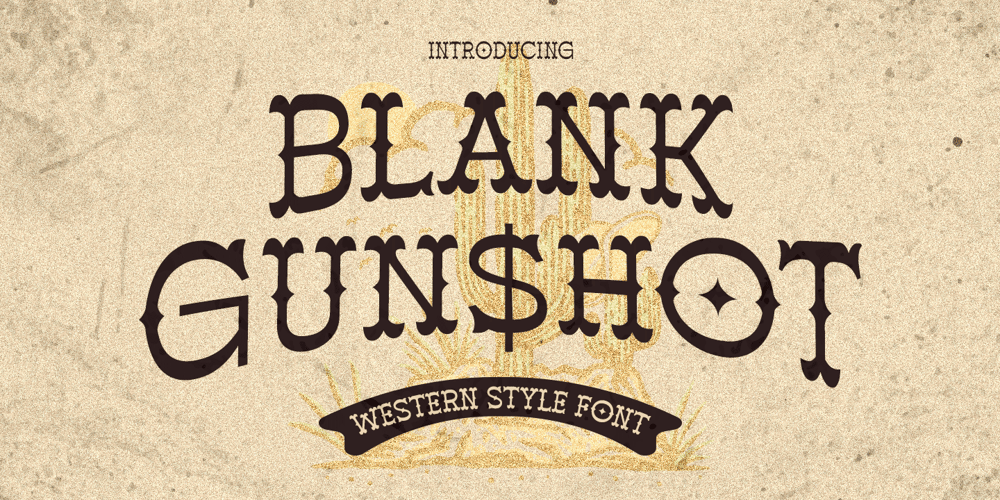
Blank Gunshot Font Family was designed by Novitasari Romli and published by Novitype. Blank Gunshot contains 1 styles and family package options. Blank Gunshot is an elegant Western slab serif font with a smooth yet sharp appearance. It is ideal for vintage design themes, especially those related to the Wild West style. This font is also crafted with additional spurs in the middle of the letters, giving your design a strong yet classy look.Blank Gunshot is specially equipped with stylistic alternates, allowing you to create beautiful typographic designs. It works great for posters, logotypes, logos, headlines, cards, flyers, movies, subheadlines, short texts, quotes, books, magazines, signage, storefronts, stickers, packaging, and much more.